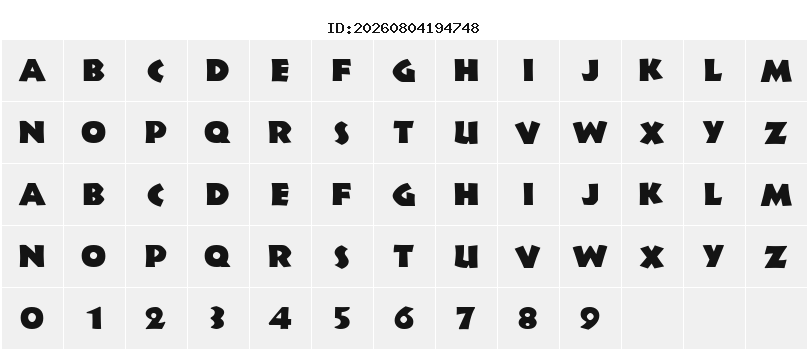
Newland Preview
• Font Name: Newland
• Font Style: Black
• Font ID: Newland Black
• Full Font Name: Newland Black
• PostScript Name: Newland- Black
About Newland.ttf
Newland.ttf is a modern, elegant sans-serif font designed for ultimate readability and visual harmony. Perfect for branding, headlines, web design, and print materials.